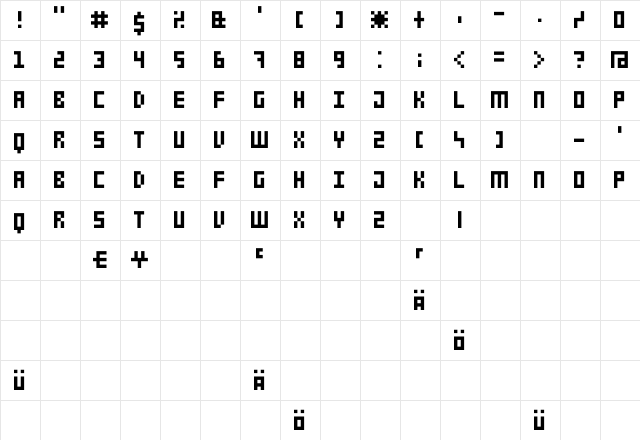
DS 1D Regular
Design Context for DS 1D Typeface
DS 1D takes a measured approach to typography — its balanced proportions and neutral character make it a reliable workhorse for both digital and print work.